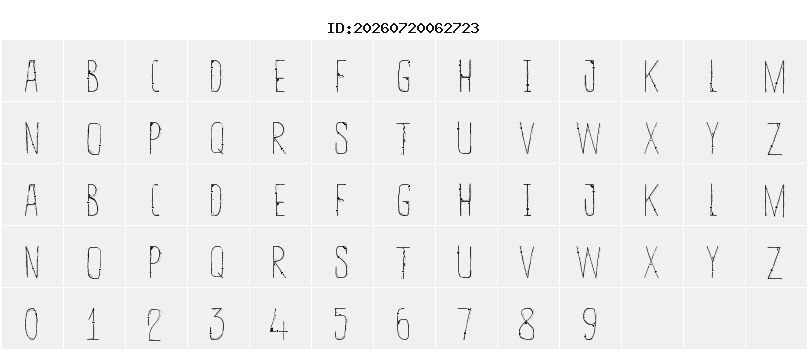
• Font Name: ENTIA
• Full Font Name: ENTIA Regular
• Designer: Virgilio Cortez
• Manufacturer: PYRS Fontlab Ltd. / Made with FontLab
• Description: ENTIA Regular is a font by PYRS Fontlab Ltd. / Made with FontLab, designed by Virgilio Cortez in 2013.
ENTIA.ttf is a modern, elegant sans-serif font designed for ultimate readability and visual harmony. Perfect for branding, headlines, web design, and print materials.